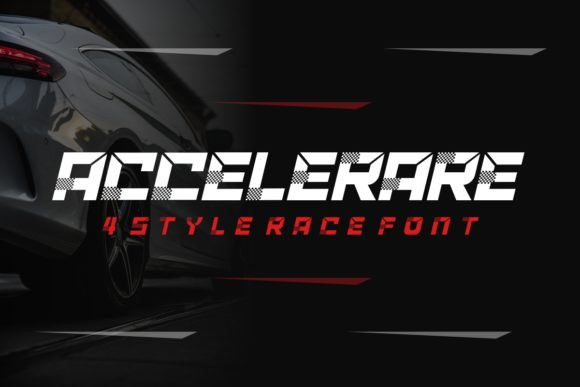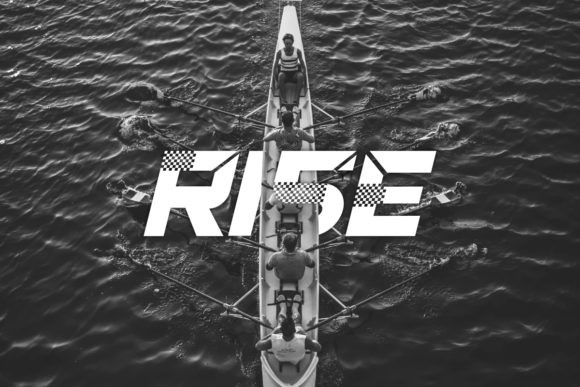
Accelerare Font
Inspired by racing speed cars, Accelerare is a sporty and dynamic sans serif font with a cool vibe. Use it to turn any project into a standout.